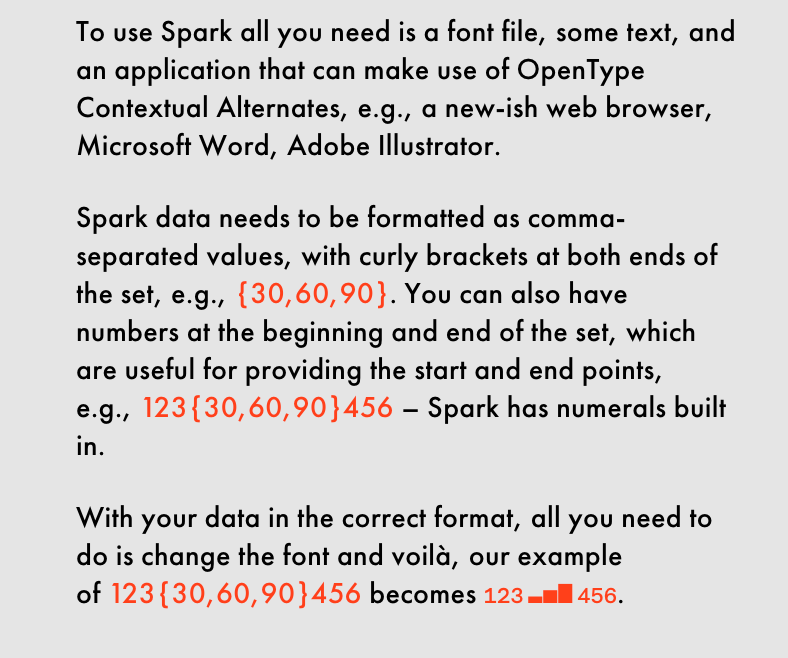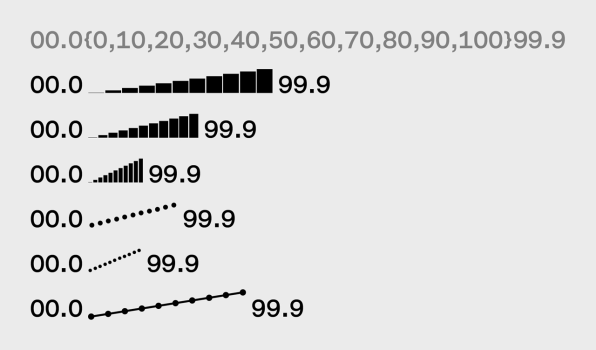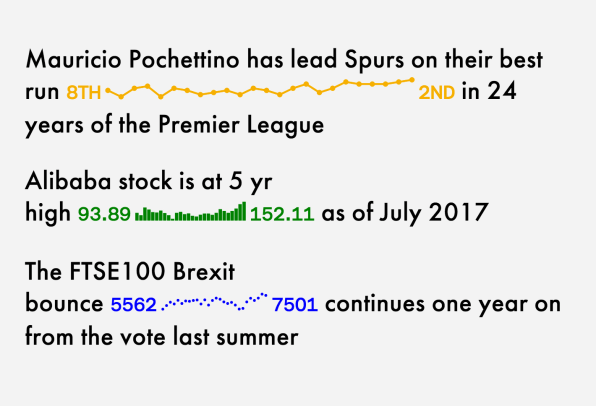
AtF Spark Font
Sparklines and quantitative insights within the type font.
AtF Spark Font is a typeface for creating sparklines in text. It uses OpenType's contextual alternates and requires no Javascript, though it does require a modern-ish browser that can make use of OpenType features in text.